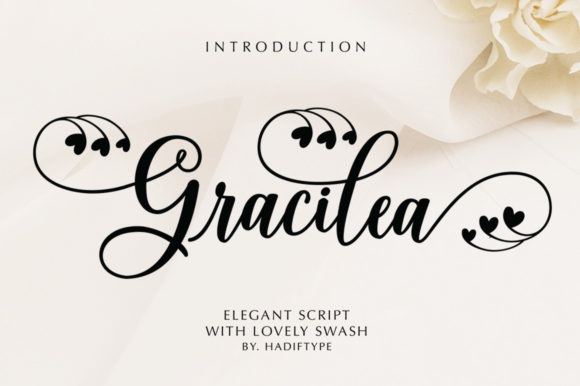
Gracilea Script Font
Journey into the realm of captivating typography with Gracilea Script, a handwritten font exuding elegance and charm. This versatile script weaves a tapestry of creativity, adding a touch of sophistication to your designs. Whether you're crafting personalized greeting cards, conjuring eye-catching headlines, or designing logos that leave a lasting impression, Gracilea Script is your trusted companion.
With its graceful curves and enchanting swashes, Gracilea Script effortlessly elevates your designs, imbuing them with a timeless beauty. Its flowing lines evoke a sense of artistry and craftsmanship, captivating your audience and leaving them spellbound. As a PUA encoded font, Gracilea Script grants you effortless access to its entire repertoire of glyphs and swashes, empowering you to unleash your creativity without limits.
Indulge in the versatility of Gracilea Script, a font that seamlessly adapts to a myriad of design projects. From the delicate finesse of wedding invitations to the bold allure of branding materials, Gracilea Script effortlessly elevates your creations. Its inherent elegance lends itself perfectly to logos, where it commands attention and leaves a lasting impression. Whether you seek to craft captivating social media posts or add a touch of sophistication to your website, Gracilea Script is your steadfast ally.
Embrace the allure of Gracilea Script, a font that speaks to the heart and captivates the senses. Its ability to evoke emotion and create a lasting connection with your audience is unparalleled. Allow Gracilea Script to become your creative muse, guiding you towards designs that resonate and leave an enduring legacy.